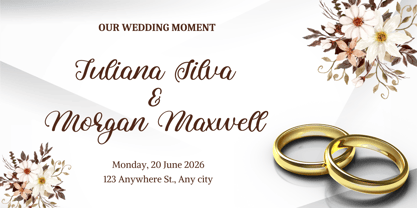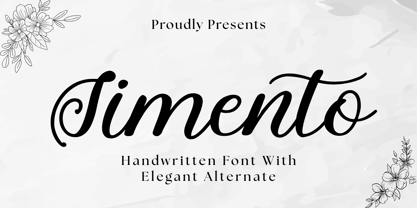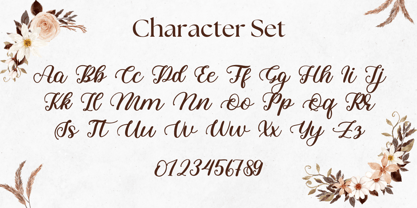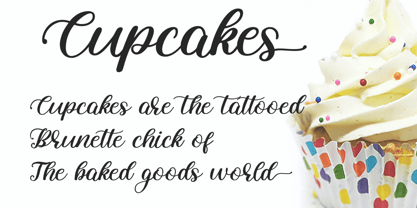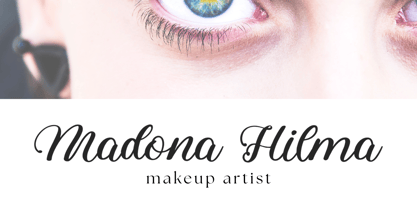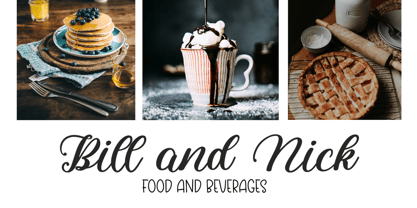
Simento
by Beary
The Simento Font Family was designed by Dian Haniffan Hadi and published by Beary. Simento contains 1 styles. More about this family
Simento is a beautiful and neat display font, perfect for making your designs stand out from the crowd. Its characters are perfect for wall displays, wedding invitations, social media post logos, advertisements, product packaging, product designs, labels, photography, watermarks, invitations, stationery, and any project that requires modern typography.
Designers: Dian Haniffan Hadi
Foundry: Beary